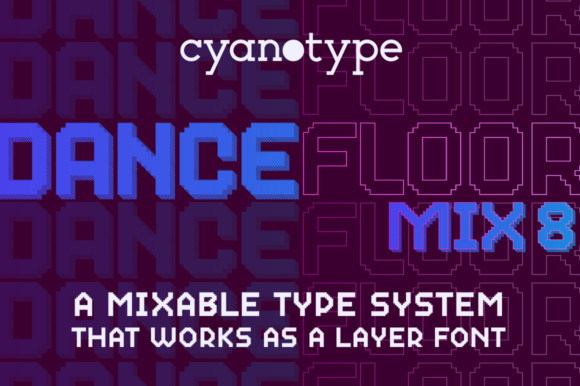
Dance Floor Mix 8 Font
Dance Floor Mix 8 is a lively fusion of display fonts, bitmap fonts, layer fonts and geometric pattern systems. These distinct styles allow you to mix & match and create multiple fun and experimental versions!